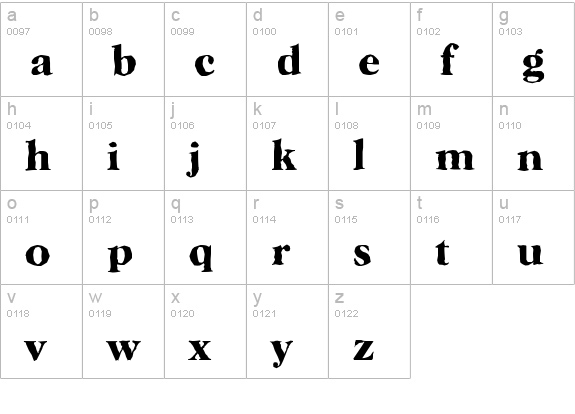
HorshamAntique-Bold Font Details
HorshamAntique-Bold is a strong, high-contrast variant in the HorshamAntique typeface family \xE2\x80\x94 well suited to headlines, attention-grabbing titles, and strong calls-to-action.
HorshamAntique-Bold font is a timeless and elegant typeface that exudes a sense of vintage charm and sophistication. With its bold and striking design, this font is perfect for adding a touch of classic appeal to any project. The intricate details and stylish curves of HorshamAntique-Bold make it a standout choice for headlines, titles, and branding materials. Best of all, HorshamAntique-Bold font is available for free download at FontsMarket.com. This means you can easily access and use this stunning typeface without any cost, making it a valuable addition to your font collection. Don't miss out on the opportunity to elevate your designs with the beauty and grace of HorshamAntique-Bold font - download it today and let your creativity shine!